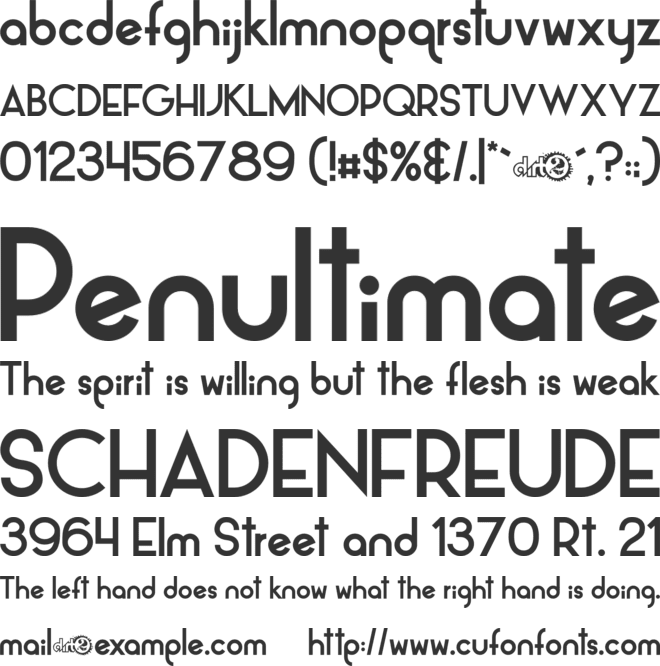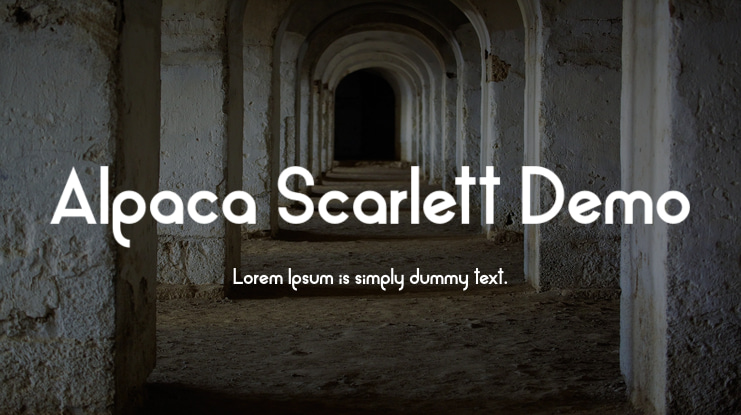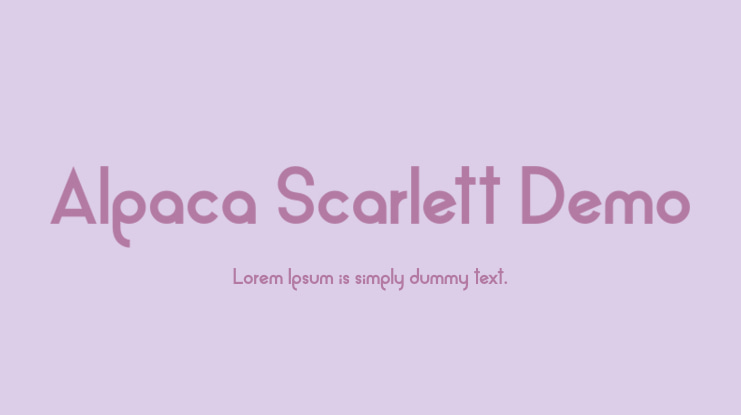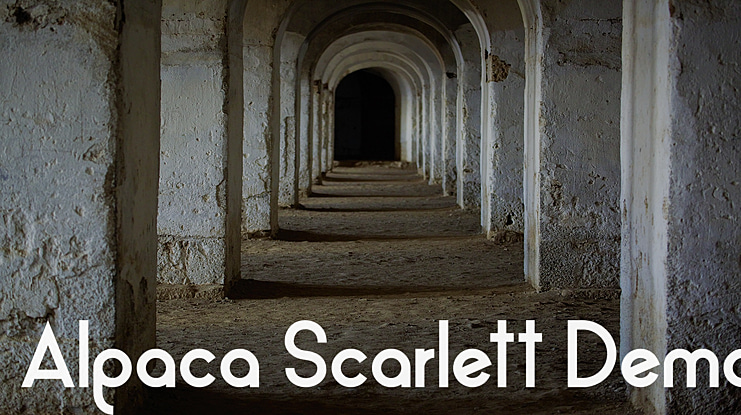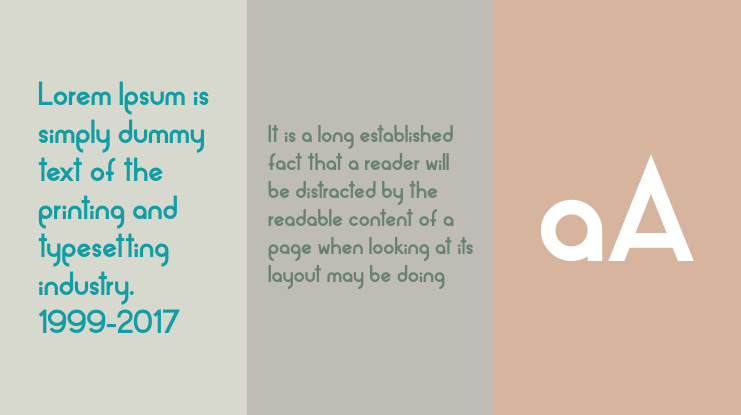
Alpaca Scarlett Demo Font Family
This is an improvement on Alpaca 54 which was one of the first fonts I ever made - the edges on Alpaca 54 were rounded and smooth characters seemed to have choppy lettering, not to mention the lack of punctuation and the randomly grunge lowercase.